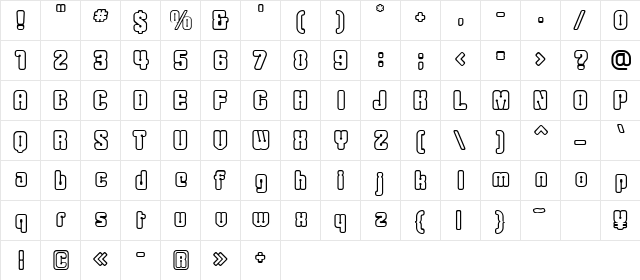
Cliperopen Regular
Design Context for Cliperopen Typeface
Cliperopen takes a measured approach to typography — its balanced proportions and neutral character make it a reliable workhorse for both digital and print work.